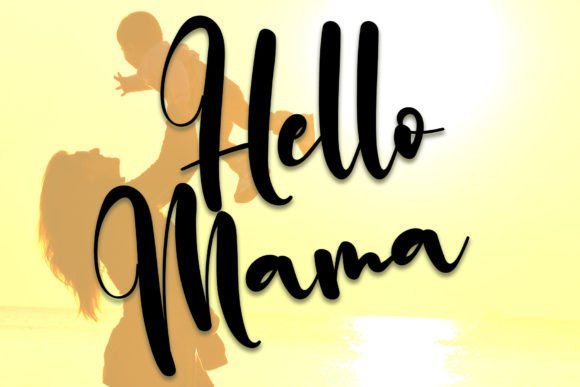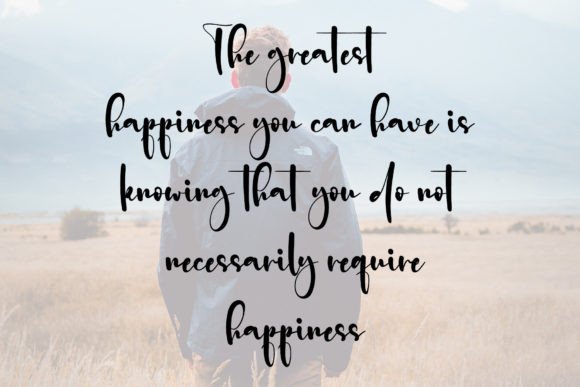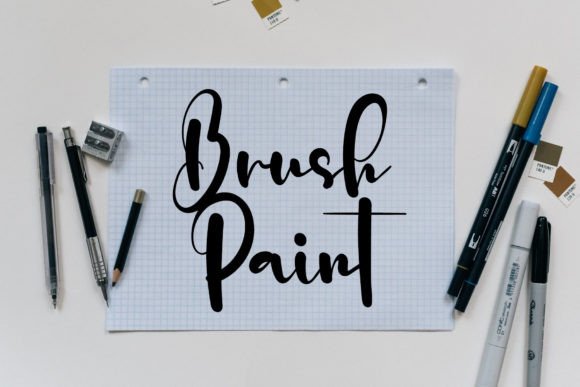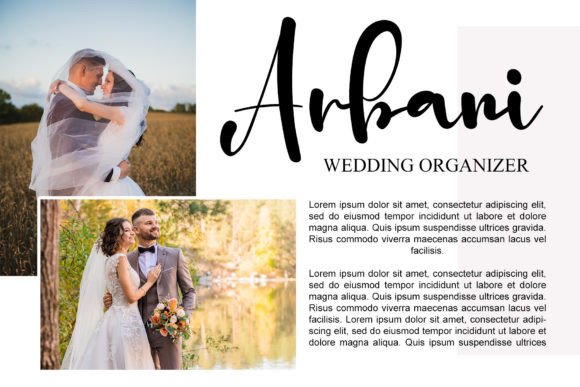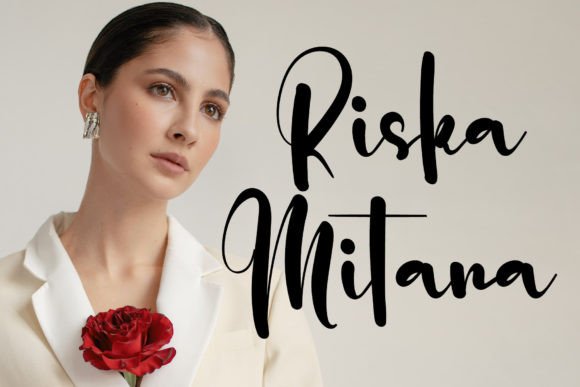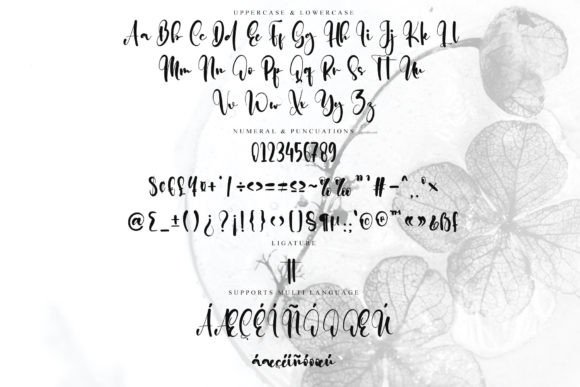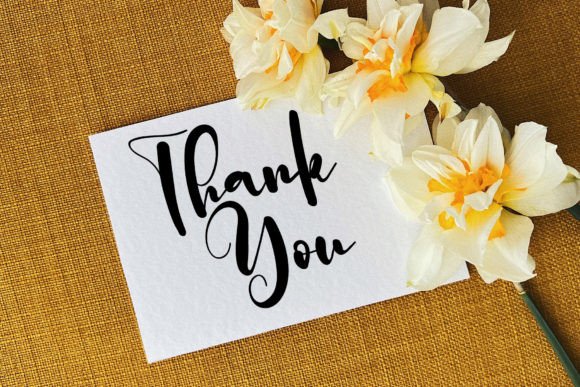
Creating a Heartfelt Connection: The Hello Mama Font
As a designer, there’s nothing quite like the feeling of crafting a beautiful piece that touches someone’s heart. For many, it’s the simple yet profound gesture of expressing love and appreciation to the special women in our lives. Whether it’s a Mother’s Day card or a heartfelt message, the right typography can make all the difference. This is where the Hello Mama Font comes in – a stunning typeface that embodies the essence of love and affection.
Perfect for family-oriented branding, heartfelt messages, and more, the Hello Mama Font seamlessly combines script and handwritten styles to create a warm and tender feel. Its flowing letterforms and gentle curves make it the perfect choice for designers looking to add a touch of love and warmth to their typography. With the Hello Mama Font, you can create a heartfelt connection that speaks directly to the heart.
Hello Mama Font Key Features
- Font Size: The font comes in a single weight, but it can be easily scaled up or down to suit different design needs.
- Resolution: Hello Mama Font is optimized for high-resolution displays, making it perfect for digital designs, such as logos, icons, and typography.
- Unique Characteristics: The font features a unique, hand-drawn design with a mix of playful and elegant elements, making it ideal for creative and artistic projects.
- Legibility: Despite its artistic nature, Hello Mama Font is highly legible, ensuring that the text remains clear and easy to read, even at smaller font sizes.
Hello Mama Font Review
Hello Mama Font is a beautiful, hand-drawn font that exudes warmth and personality. ✨ I appreciate how the font’s organic feel makes it perfect for creative projects that need a touch of whimsy. ✨ The font’s script-like features add a sense of elegance and sophistication, making it suitable for a wide range of applications.
- Beautiful, hand-drawn design that adds a personal touch to any project.
- Organic feel that’s perfect for creative projects or brands that want to stand out.
- Script-like features that add elegance and sophistication.
However, there are some limitations to consider. ⚠️ The font may not be suitable for projects that require a more modern or minimalist aesthetic. ⚠️ Additionally, the font’s organic feel can sometimes make it difficult to read, particularly in smaller font sizes.
I would recommend Hello Mama Font for projects that need a touch of warmth and personality. While it may have some limitations, the font’s unique design makes it a great choice for creative brands or projects that want to stand out. With proper usage, Hello Mama Font can be a beautiful addition to any design.
To get the most out of the Hello Mama font, try using it in combination with other decorative fonts or for headings and titles.
Experiment with different font sizes and colors to create visually appealing designs.
The Hello Mama font is commonly used for:
- Invitations and event graphics.
- Wedding stationery and decorations.
- Blog and social media posts.